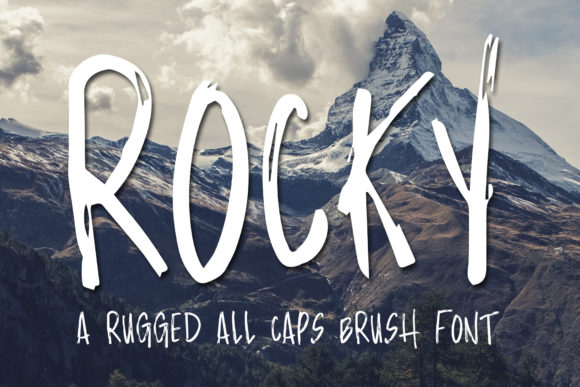
Behold, Rocky Font - the rugged, bold, and captivating display font that evokes the raw power of nature's untamed spirit. Its rough-hewn edges and dynamic brushstrokes create a visual symphony that commands attention, leaving an indelible mark on your designs.
Unleash the wild beauty of Rocky Font and let your creativity soar. This extraordinary font exudes a rugged charm that perfectly complements posters, flyers, and prints, imbuing them with a sense of adventure and untamed spirit.
Transport your audience to the great outdoors with Rocky Font. Its dynamic energy and raw power evoke images of towering mountains, roaring rivers, and endless skies, creating a connection with the natural world that is both profound and awe-inspiring.
Make a statement with Rocky Font. Its bold and assertive presence cuts through the noise, demanding attention and leaving a lasting impression. Whether you're crafting posters that ignite the imagination or flyers that capture the essence of adventure, Rocky Font is the ultimate choice for designers seeking to make an impact.
Dare to be different with Rocky Font. Break free from the mundane and embrace the untamed beauty of this captivating font. Let your designs reflect your passion for the wild and explore the endless possibilities that Rocky Font offers.